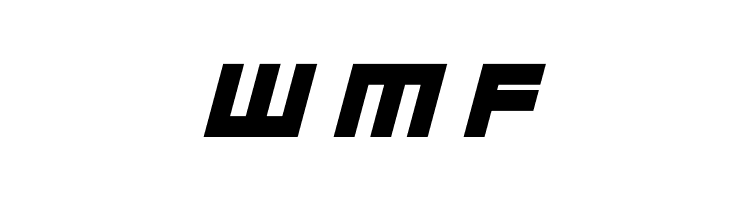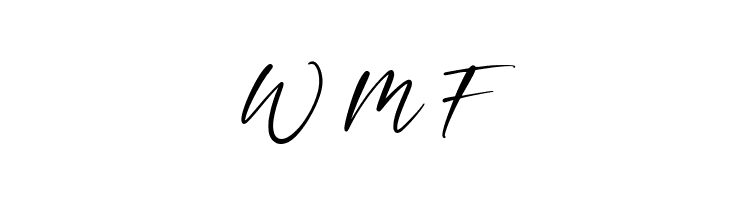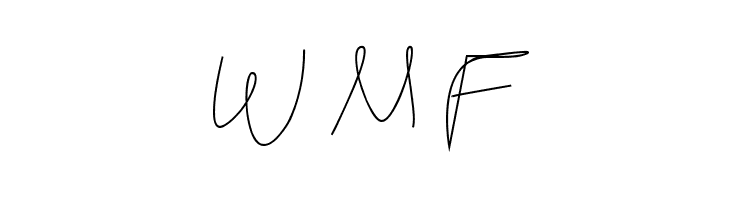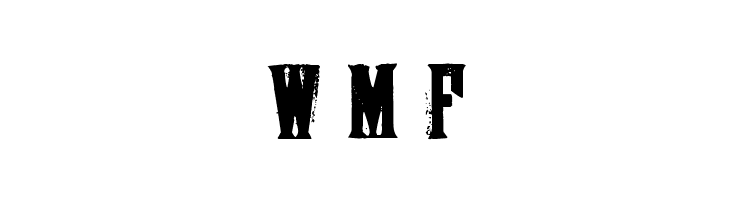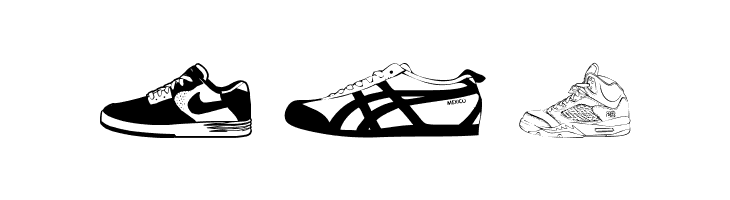
Bold, high-contrast smartphone and technology icon set.
A playful, tall, and narrow font with smooth, rounded strokes.
A playful, crayon-like font with textured, hand-drawn strokes.
A bold, distressed font with a vintage, Western-inspired style.
Monochrome sneaker and sports shoe silhouettes with brand logos.
A display font made from sneaker and athletic shoe illustrations.
A bold, playful script font with dynamic, rounded strokes.
A playful, handwritten font with tall, narrow letterforms and smooth strokes.
A bold, brush-style font with a lively, hand-drawn aesthetic.
A dynamic, cursive script font with fluid, expressive strokes.
A playful pictogram dingbat set with various themed icons.
A graceful, handwritten cursive font with thin, flowing strokes.
An elegant, flowing script font with a natural handwriting style.
A playful, handwritten font with a continuous, cursive-like style.
Hand-drawn, space-themed decorative font with playful doodles.
A bold, geometric font with a futuristic and industrial design.
A futuristic, angular font with a bold, geometric design.
A futuristic and geometric font with bold, angular letterforms.
A fluid and dynamic handwritten font with elegant, slanted letterforms.
A dynamic, italicized cursive font with a fluid, handwritten style.
A fluid, cursive font with elegant, connected strokes and a modern calligraphic style.
A bold, decorative font with characters in circular saw-like shapes.